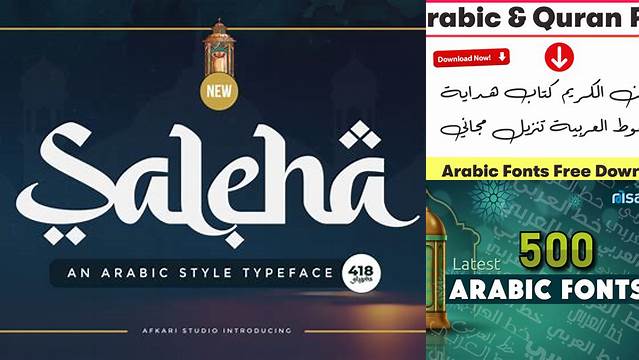
Types of Arabic Fonts for PixelLab
When it comes to Arabic fonts for PixelLab, you have a wide range of styles to choose from. Whether you're looking for traditional calligraphy or modern, minimalist designs, you're sure to find something that suits your needs. Some popular types of Arabic fonts include Kufic, Naskh, Thuluth, and Diwani. Each of these styles has its own unique characteristics, so experiment with different fonts to see what works best for your projects.
Using Arabic Fonts in PixelLab Projects
Using Arabic fonts effectively in PixelLab projects requires some consideration. Think about the overall design and the message you want to convey. Choose fonts that complement the overall aesthetic of your project and that are easy to read. Pay attention to font size, spacing, and color to ensure your text is visually appealing and impactful.
Arabic Calligraphy Fonts for PixelLab
Arabic calligraphy fonts are a beautiful way to add a touch of elegance and tradition to your PixelLab projects. These fonts are inspired by the art of Arabic calligraphy and feature intricate designs and flowing lines. They are perfect for creating logos, posters, and other designs that require a sophisticated and artistic touch.
Modern Arabic Fonts for PixelLab
If you're looking for something more contemporary, modern Arabic fonts are a great choice. These fonts feature clean lines, geometric shapes, and minimalist designs. They are perfect for creating designs that are both stylish and easy to read. Modern Arabic fonts are often used in branding, web design, and other applications where a modern aesthetic is desired.
Traditional Arabic Fonts for PixelLab
Traditional Arabic fonts are inspired by the rich history and culture of the Arab world. These fonts feature classic designs and intricate details that evoke a sense of tradition and authenticity. They are perfect for creating designs that pay homage to Arabic heritage.
Downloading Arabic Fonts for Android
Downloading Arabic fonts for Android is a simple process. You can download fonts directly from websites or use a font management app. Once you've downloaded the font files, you'll need to extract them from the ZIP archive and install them on your device. Some Android devices allow you to install fonts system-wide, while others require you to install them on a per-app basis.
Arabic Fonts for Photo Editing
Arabic fonts can add a unique and personal touch to your photo editing projects. Whether you're creating social media posts, posters, or other visual content, using Arabic fonts can help you stand out from the crowd. Experiment with different fonts and styles to see what works best for your photos.
Arabic Fonts for Graphic Design
Graphic design projects often require a variety of fonts to create visually appealing and effective designs. Arabic fonts can be a valuable addition to your font library, allowing you to create designs that are both beautiful and culturally relevant. Consider using Arabic fonts in logos, branding materials, and other graphic design projects.
How to Choose the Right Arabic Font
Choosing the right Arabic font for your project can be challenging, but it's essential to consider several factors. Think about the overall design and the message you want to convey. Choose fonts that complement the overall aesthetic of your project and that are easy to read. Pay attention to font size, spacing, and color to ensure your text is visually appealing and impactful.
Arabic Font Styles and Their Meanings
Different Arabic font styles have different meanings and connotations. For example, traditional calligraphy fonts often evoke a sense of elegance and tradition, while modern fonts convey a sense of innovation and modernity. Understanding the meanings behind different font styles can help you choose the right font for your project.
Creating Custom Arabic Text with PixelLab
PixelLab allows you to create custom Arabic text with ease. You can choose from a variety of fonts, sizes, colors, and styles to create text that perfectly matches your design. Experiment with different settings to create unique and eye-catching text.
Free Arabic Fonts for Commercial Use
If you plan to use Arabic fonts in projects that generate income, it's essential to choose fonts that are free for commercial use. Always read the license agreement before using a font to ensure you comply with the terms. Many websites offer fonts that are free for both personal and commercial use.
Arabic Fonts for Logo Design
Logo design requires careful consideration of typography. Arabic fonts can be a great choice for creating logos that are both unique and culturally relevant. Choose fonts that reflect your brand's identity and values, and ensure they are easy to read and recognize.
Arabic Fonts for Social Media
Social media is a visual medium, and using the right fonts can help you stand out from the crowd. Arabic fonts can add a touch of authenticity and personality to your social media posts. Experiment with different fonts and styles to see what resonates with your audience.
Arabic Fonts for Posters and Flyers
Posters and flyers require fonts that are both eye-catching and easy to read. Arabic fonts can be a great choice for creating posters and flyers that grab attention and convey your message effectively. Choose fonts that are appropriate for your target audience and the overall design of your poster or flyer.
Arabic Fonts for Video Editing
Video editing projects often require titles, captions, and other text elements. Arabic fonts can be a great choice for adding a unique and personal touch to your videos. Choose fonts that are easy to read and that complement the overall aesthetic of your video.
Arabic Fonts for Web Design
Web design requires fonts that are both visually appealing and easy to read on screens. Arabic fonts can be a valuable addition to your web design toolkit, allowing you to create websites that are both beautiful and accessible. Consider using web-safe Arabic fonts to ensure your website looks great on all devices.
Arabic Fonts for Print Design
Print design requires fonts that are clear and legible when printed on paper. Arabic fonts can be a great choice for creating brochures, business cards, and other printed materials. Choose fonts that are appropriate for the size and format of your print design.
Managing Arabic Fonts on Your Device
Managing Arabic fonts on your device is essential for keeping your font library organized and efficient. Use a font management app to easily install, uninstall, and organize your fonts. This can help you find the right font for your project quickly and easily.
Troubleshooting Arabic Font Issues in PixelLab
Sometimes, you may encounter issues with Arabic fonts in PixelLab, such as fonts not displaying correctly or not appearing at all. This can often be resolved by ensuring that the font files are properly installed and that PixelLab is up to date. If you're still having trouble, try restarting PixelLab or your device.
The Future of Arabic Fonts in Design
The future of Arabic fonts in design is bright. As technology continues to evolve, we can expect to see even more innovative and creative Arabic fonts emerge. Designers are constantly pushing the boundaries of typography, and Arabic fonts are no exception. Embrace new trends and experiment with different styles to create designs that are both cutting-edge and culturally relevant.
Understanding Arabic Font Licensing
Understanding Arabic font licensing is crucial to ensure you're using fonts legally and ethically. Different fonts have different licenses, which dictate how you can use them. Some fonts are free for personal use but require a commercial license for business purposes. Always read the license agreement carefully before using a font.
Creating Your Own Arabic Fonts
If you're feeling creative, you can even try creating your own Arabic fonts. There are many font creation tools available that allow you to design your own fonts from scratch. This can be a challenging but rewarding experience, allowing you to create truly unique and personalized fonts.
Resources for Learning Arabic Calligraphy
If you're interested in learning more about Arabic calligraphy, there are many resources available to help you get started. Online courses, books, and workshops can provide you with the skills and knowledge you need to master this beautiful art form. Learning Arabic calligraphy can also enhance your understanding and appreciation of Arabic fonts.
Staying Updated on New Arabic Fonts
Staying updated on new Arabic fonts is a great way to keep your designs fresh and innovative. Follow font designers and foundries on social media, subscribe to newsletters, and regularly browse font websites to discover new and exciting fonts. This will help you stay ahead of the curve and create designs that are both modern and impactful. So, there you have it – a complete guide to finding and using Arabic fonts for PixelLab. Happy designing!